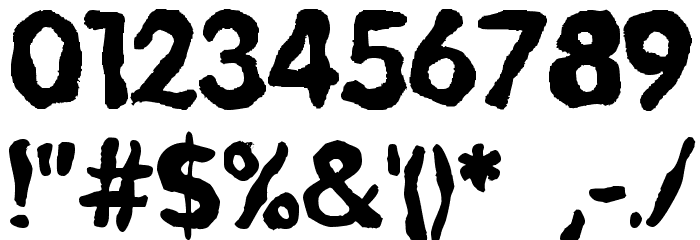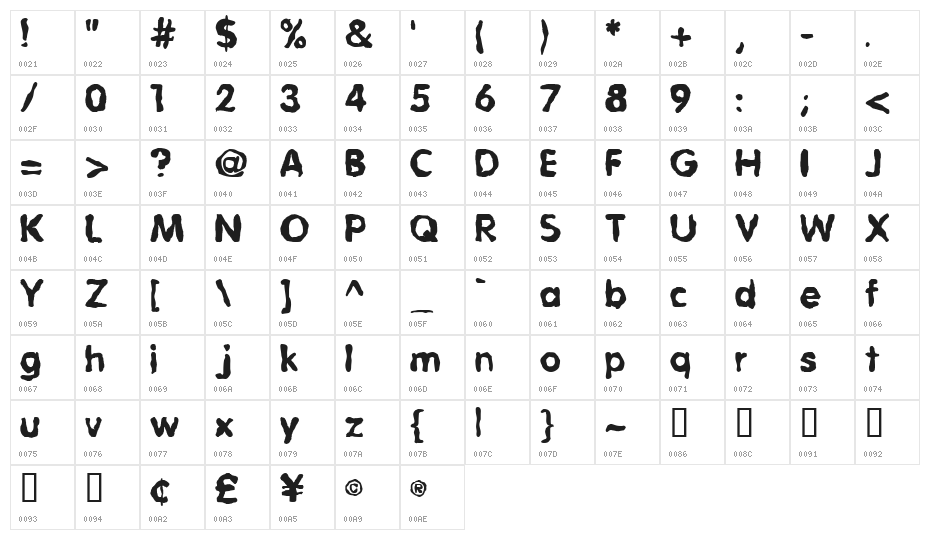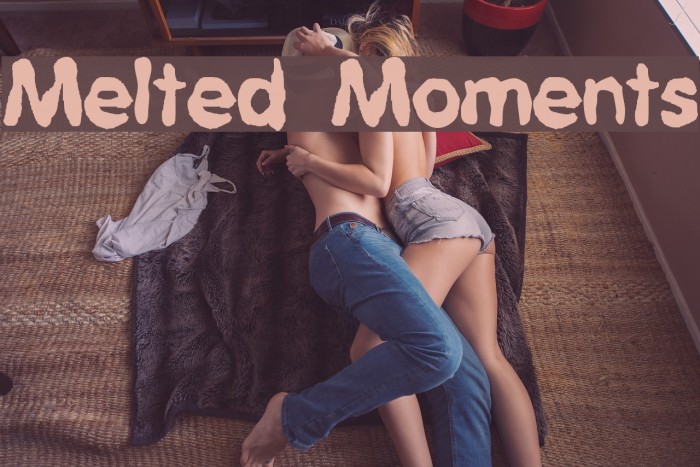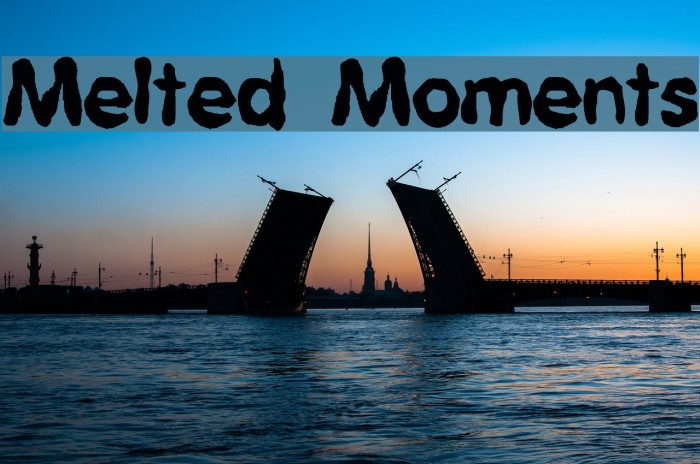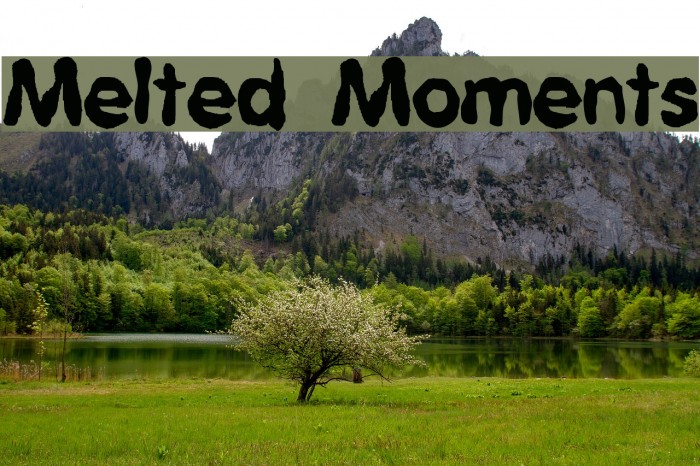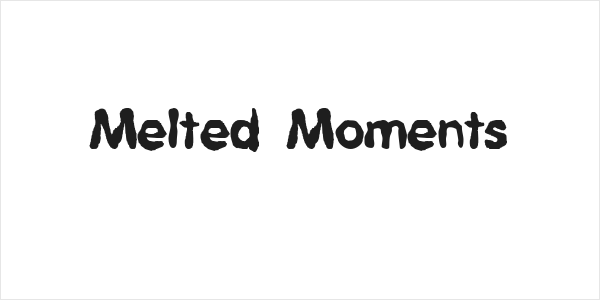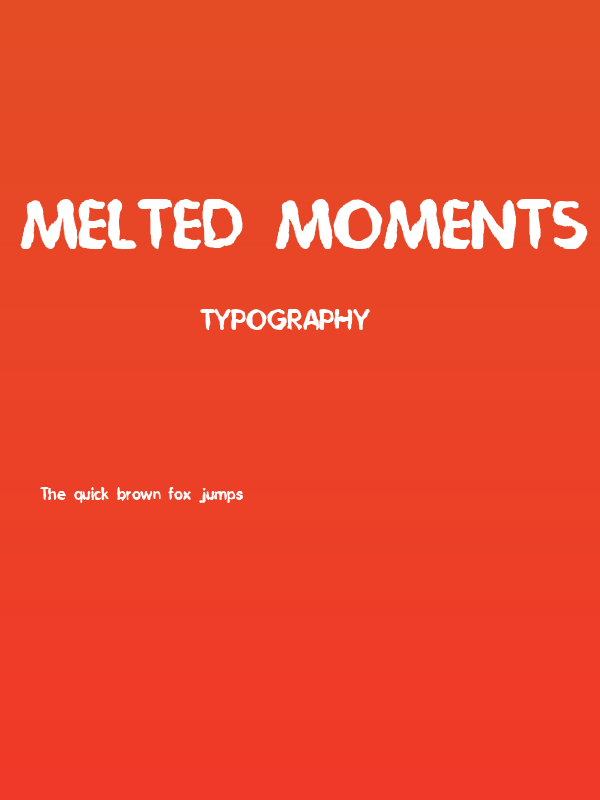
Melted Moments Font
Melted Moments Description
This font features a playful and organic style, reminiscent of melted or dripping elements. The characters have a bold and irregular appearance, with uneven edges that give a hand-drawn feel. The uppercase and lowercase letters maintain a consistent thickness, while the numbers and special characters follow the same whimsical design. The overall look is informal and artistic, making it suitable for creative and fun projects. Its unique style captures attention and adds a distinctive touch to any design.
| Proposed Projects | Ideal for children's book covers, playful branding, artistic posters, and creative event invitations. |